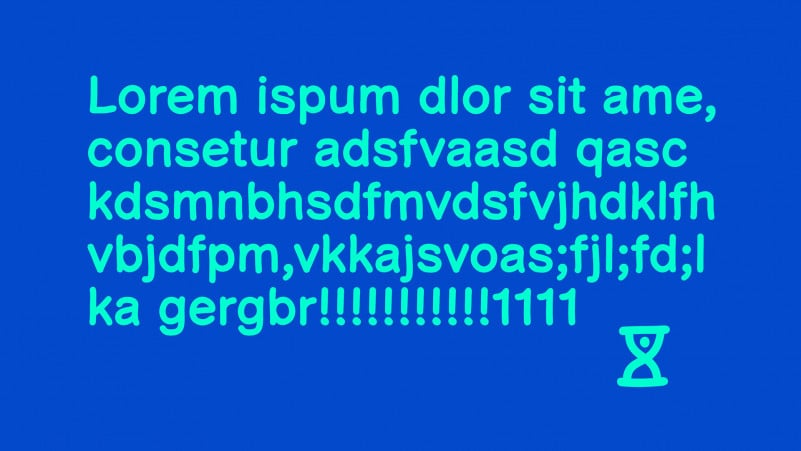
Comic Helvetic Comic Font is an experimental project inspired by Comic Sans and Helvetica. Comic Helvetic was created for a cartoon dog named Hover: https://www.instagram.com/hover_advice/
Typeface has Extended Latin and Cyrillic characters.
- Designer: Alexander Pravdin